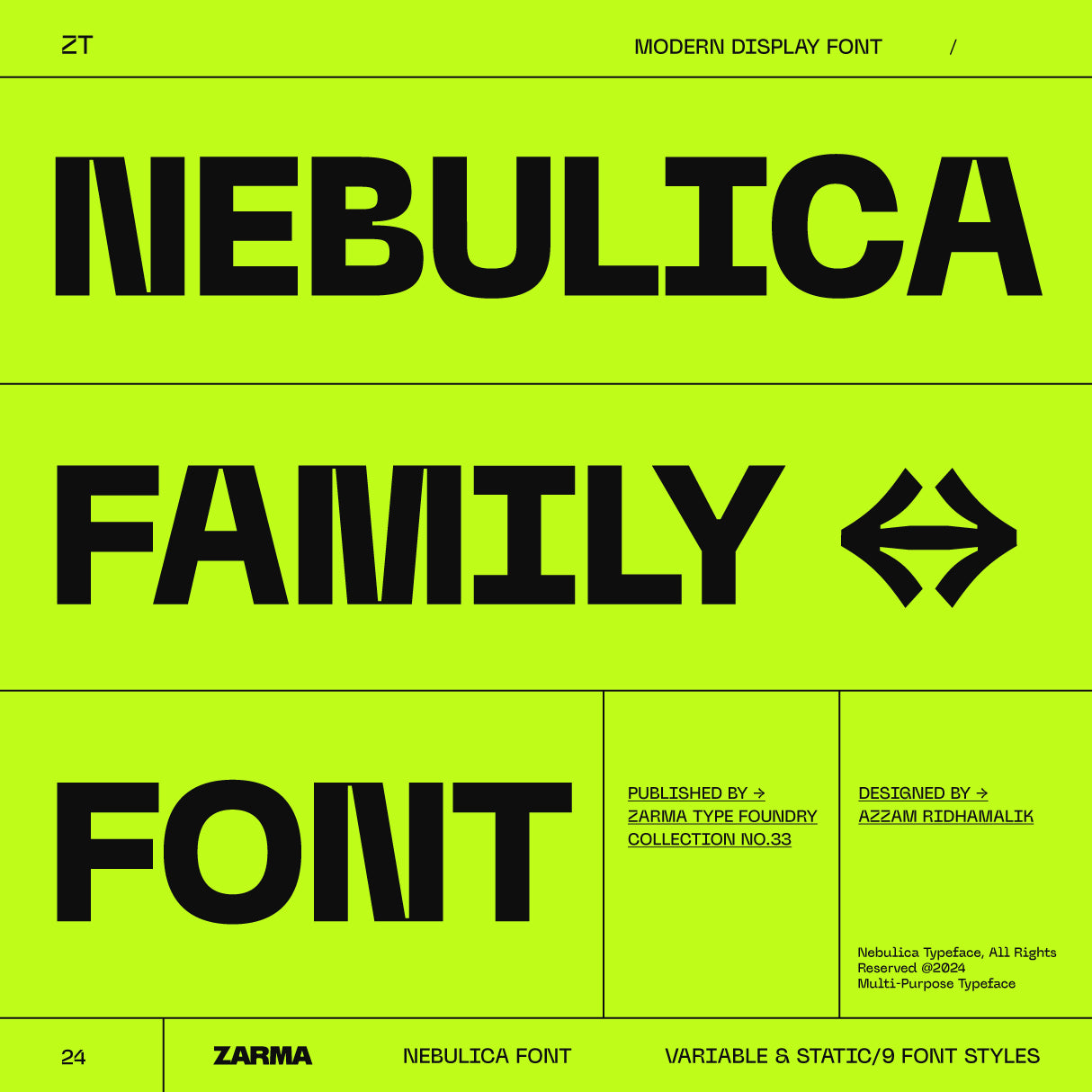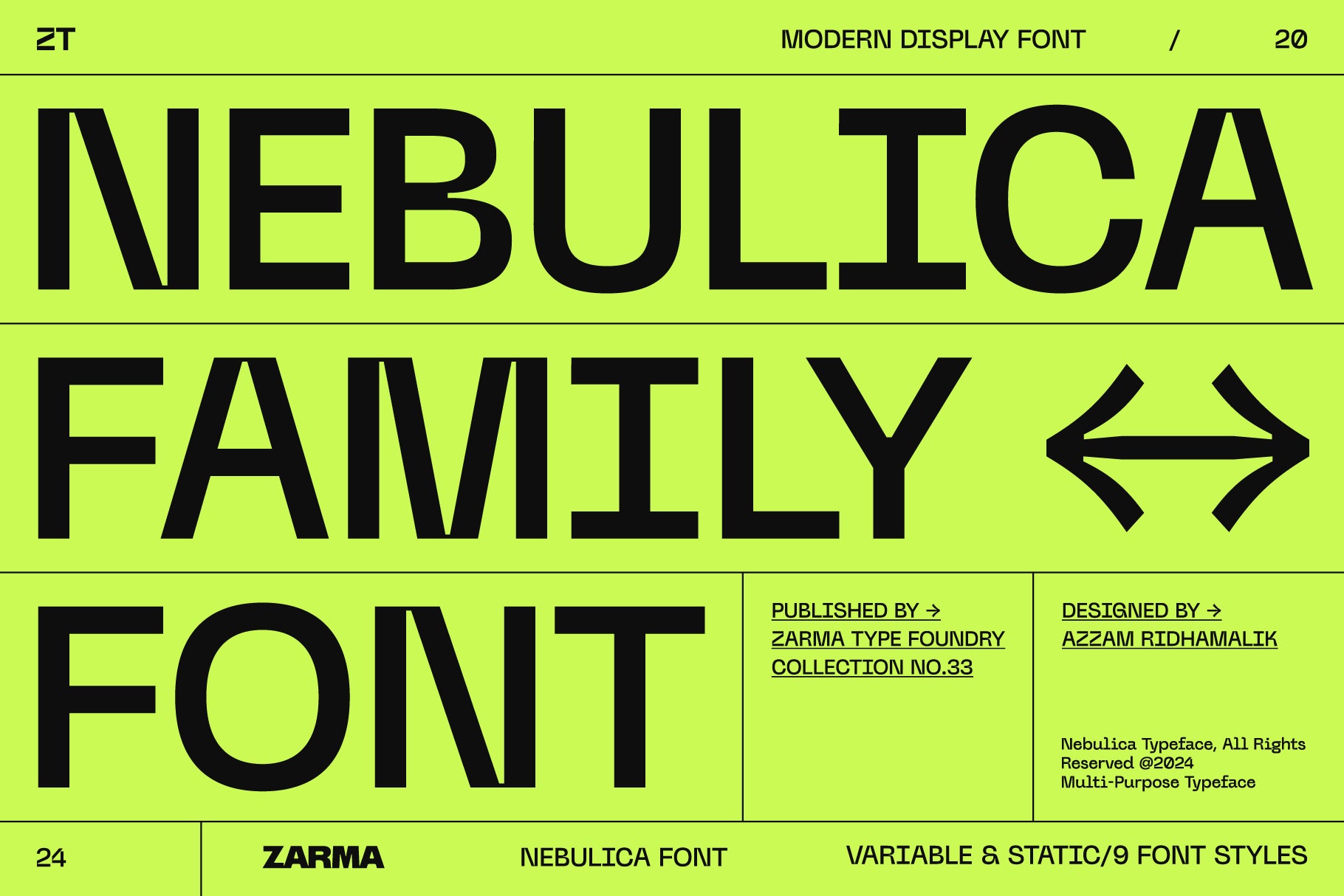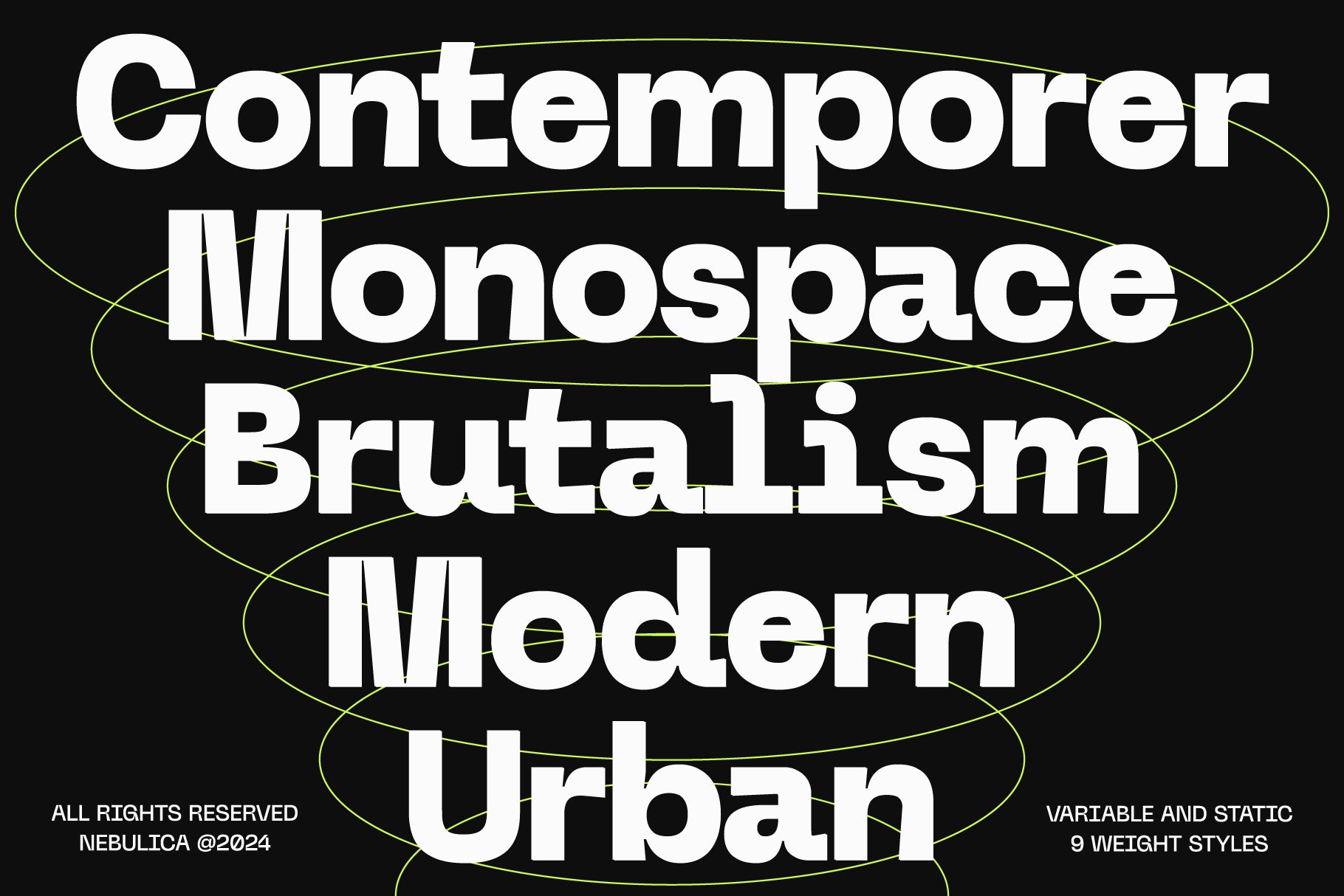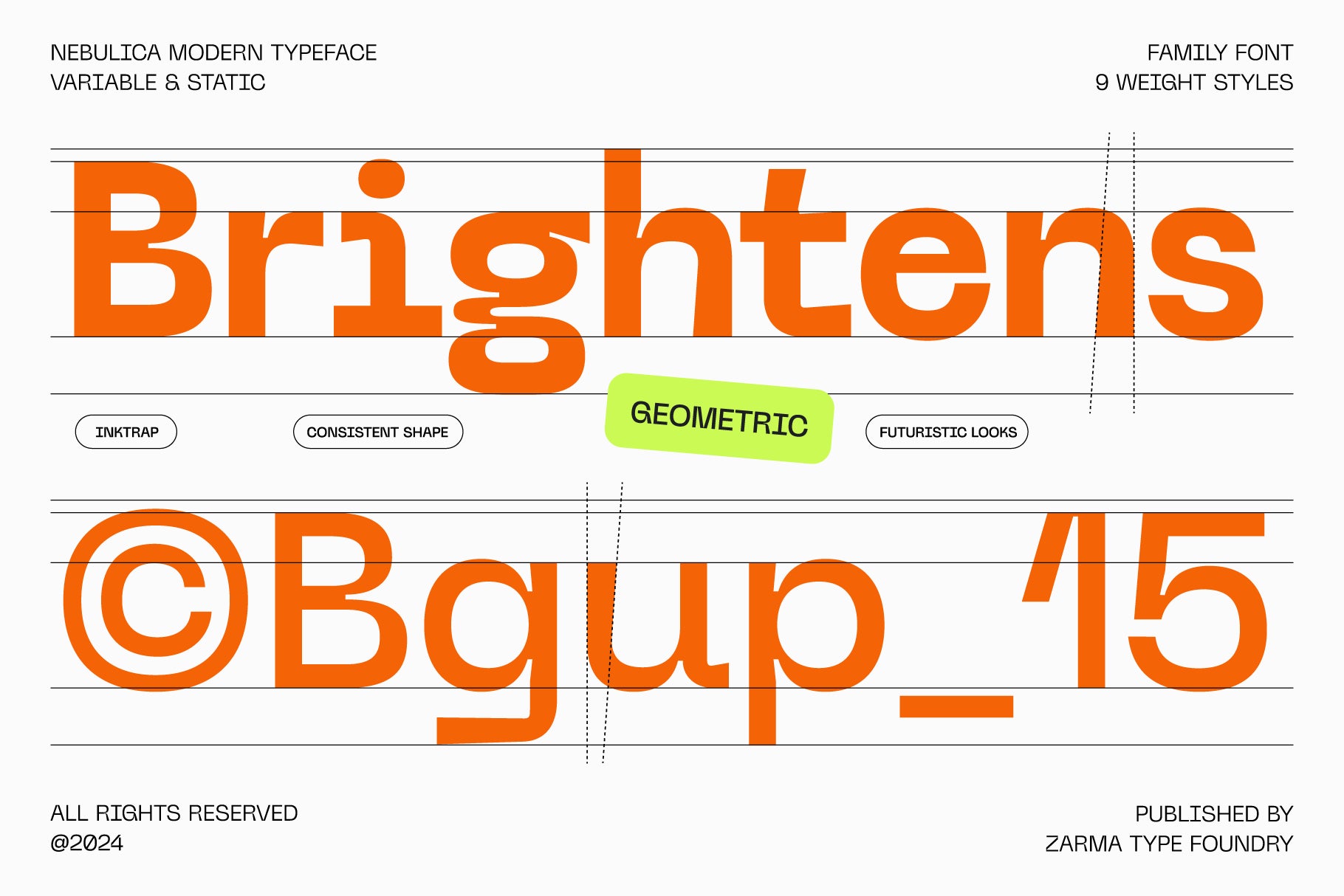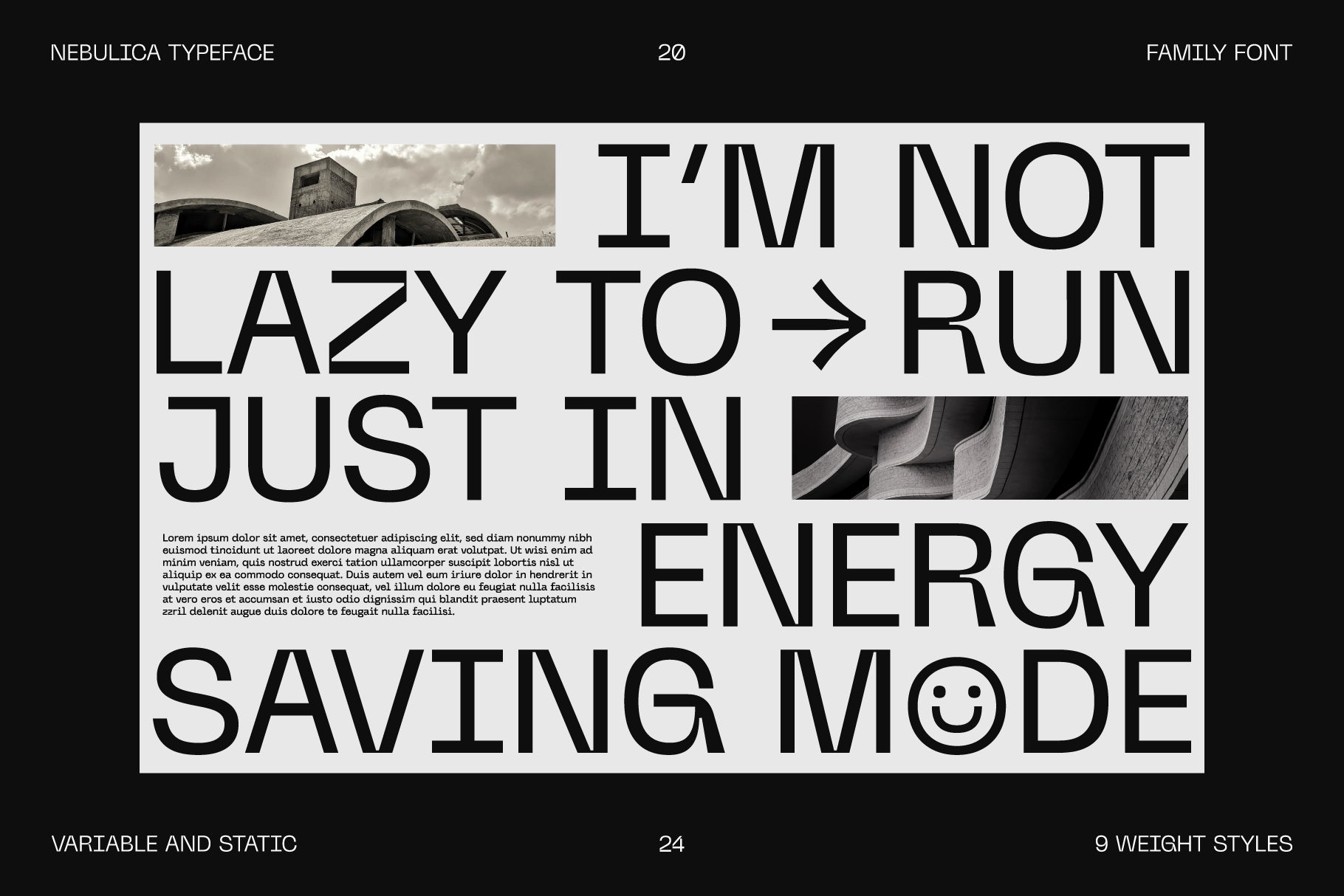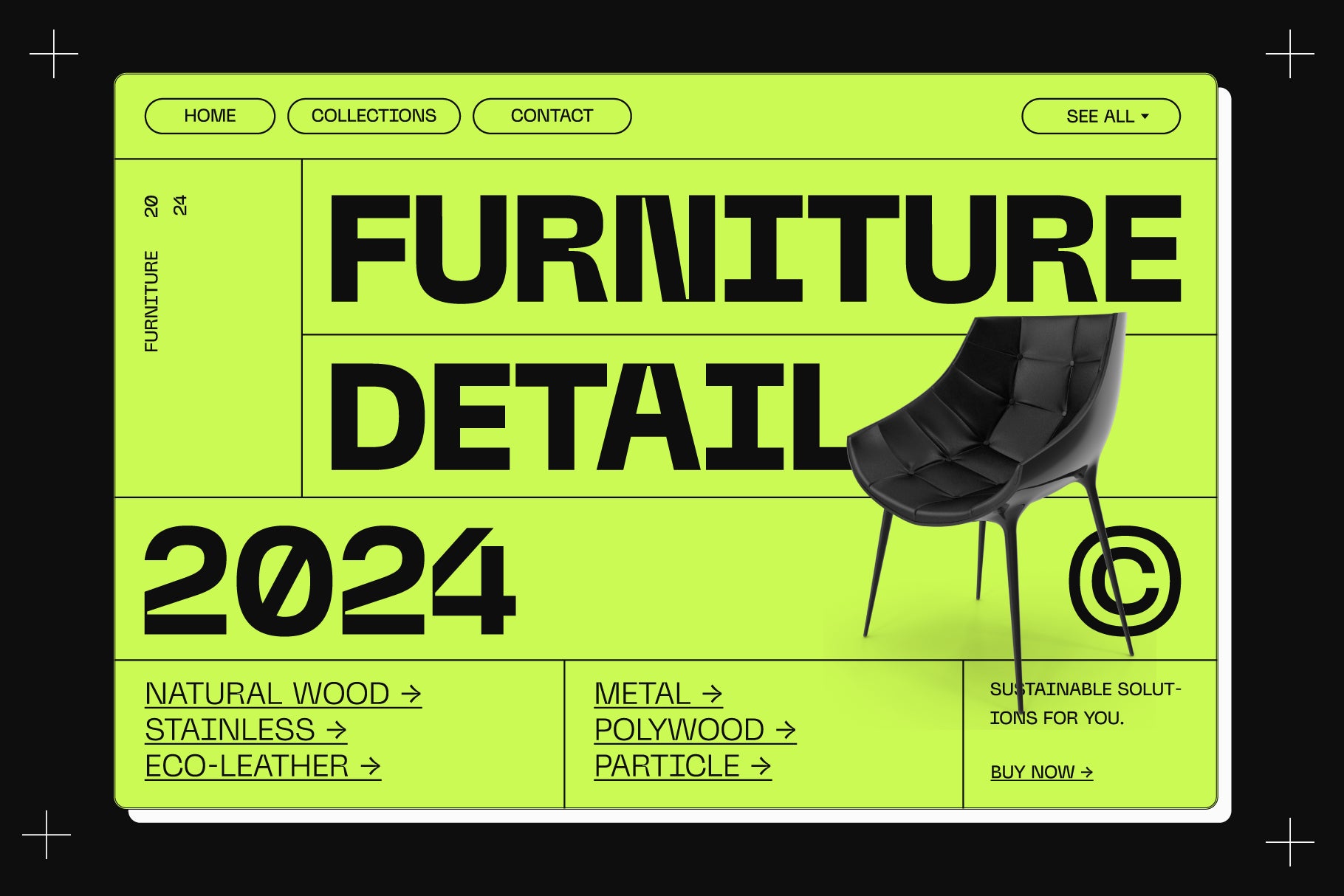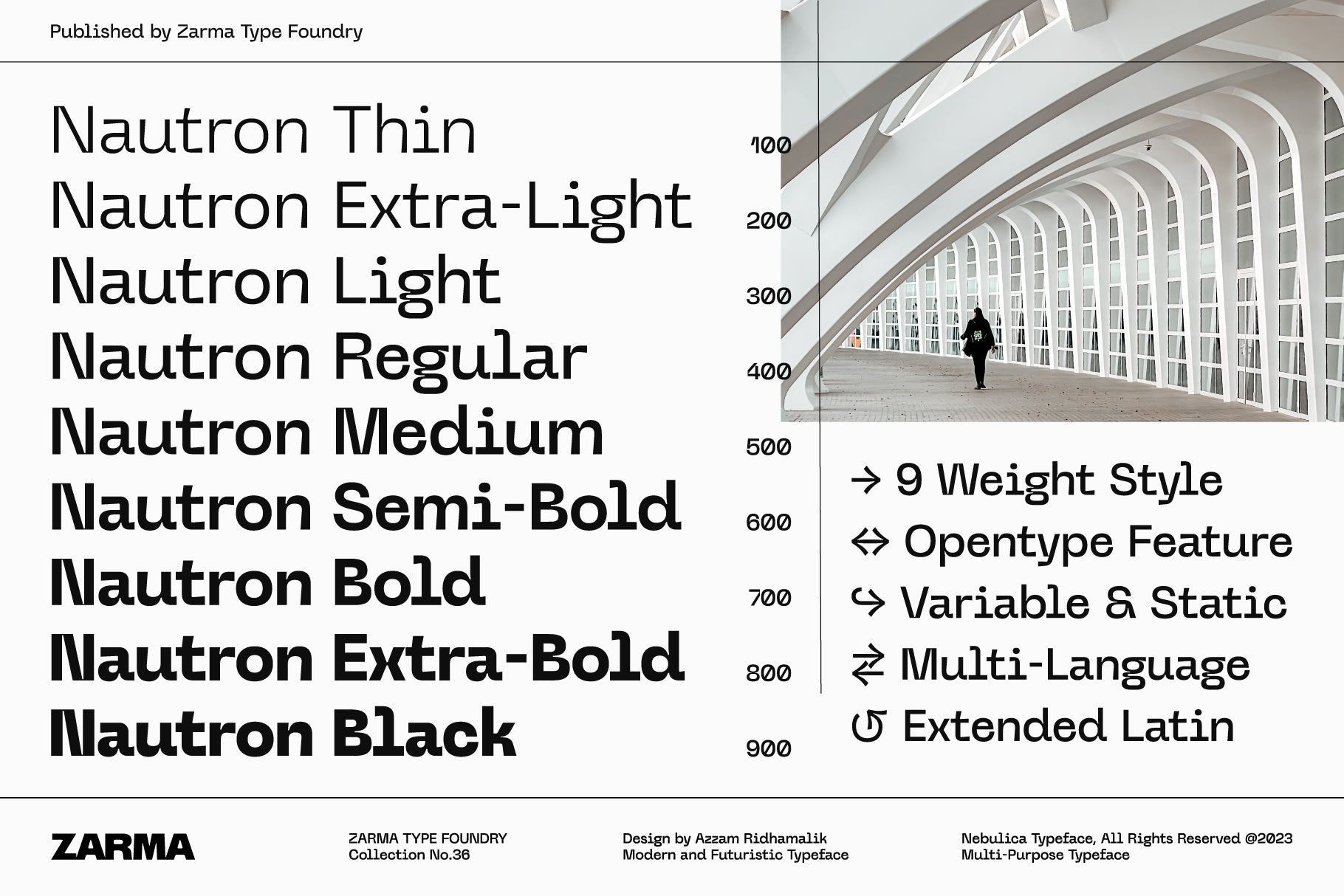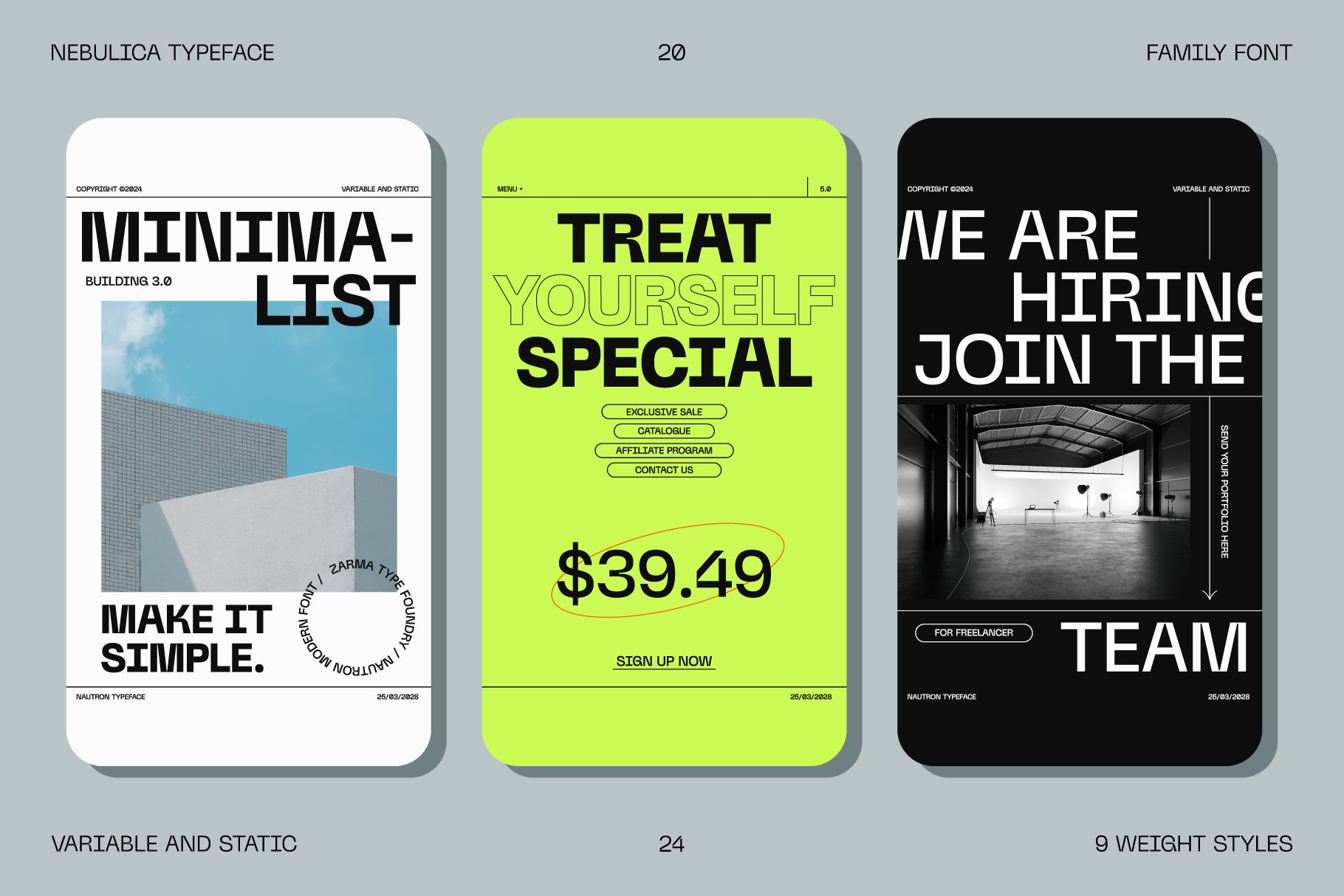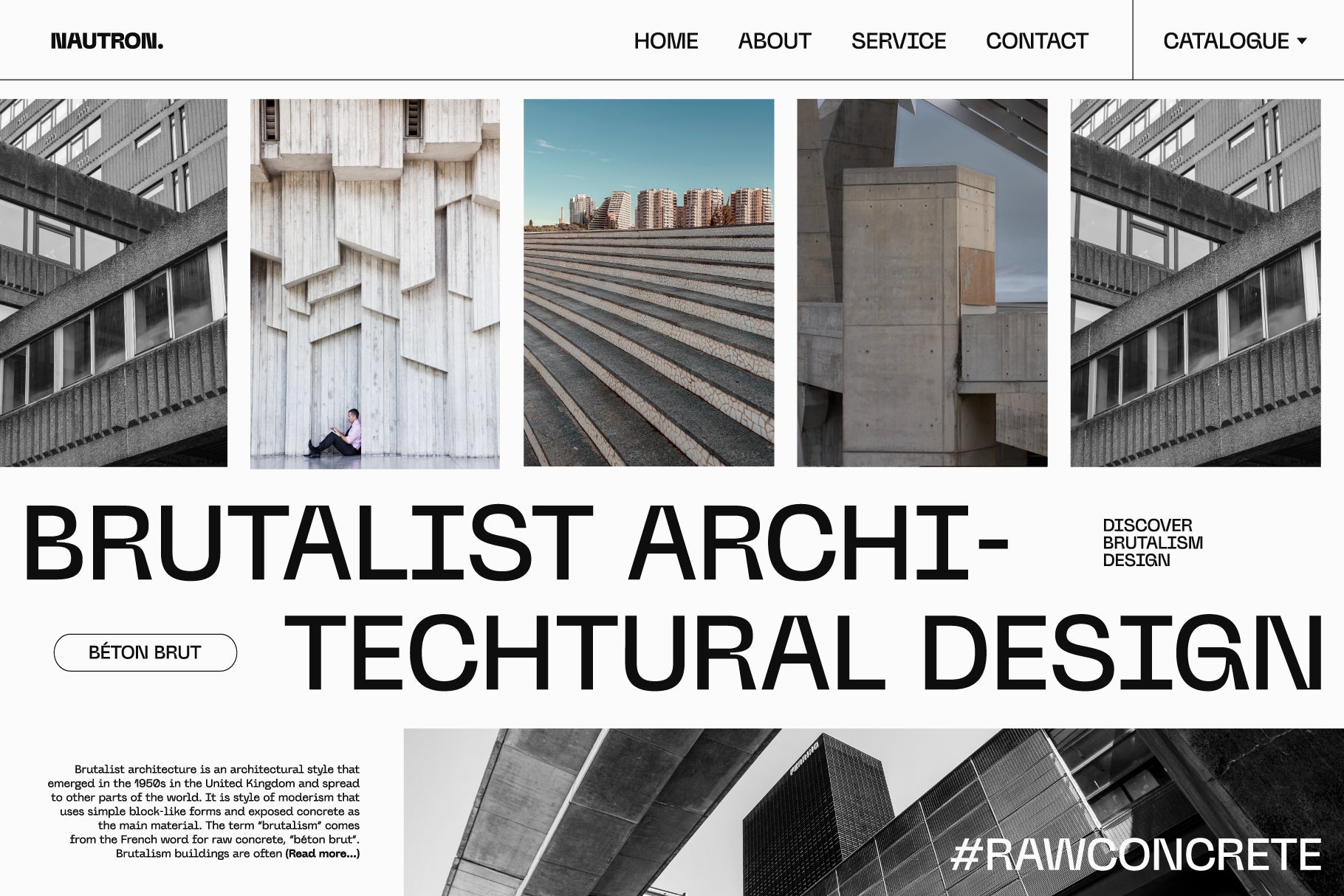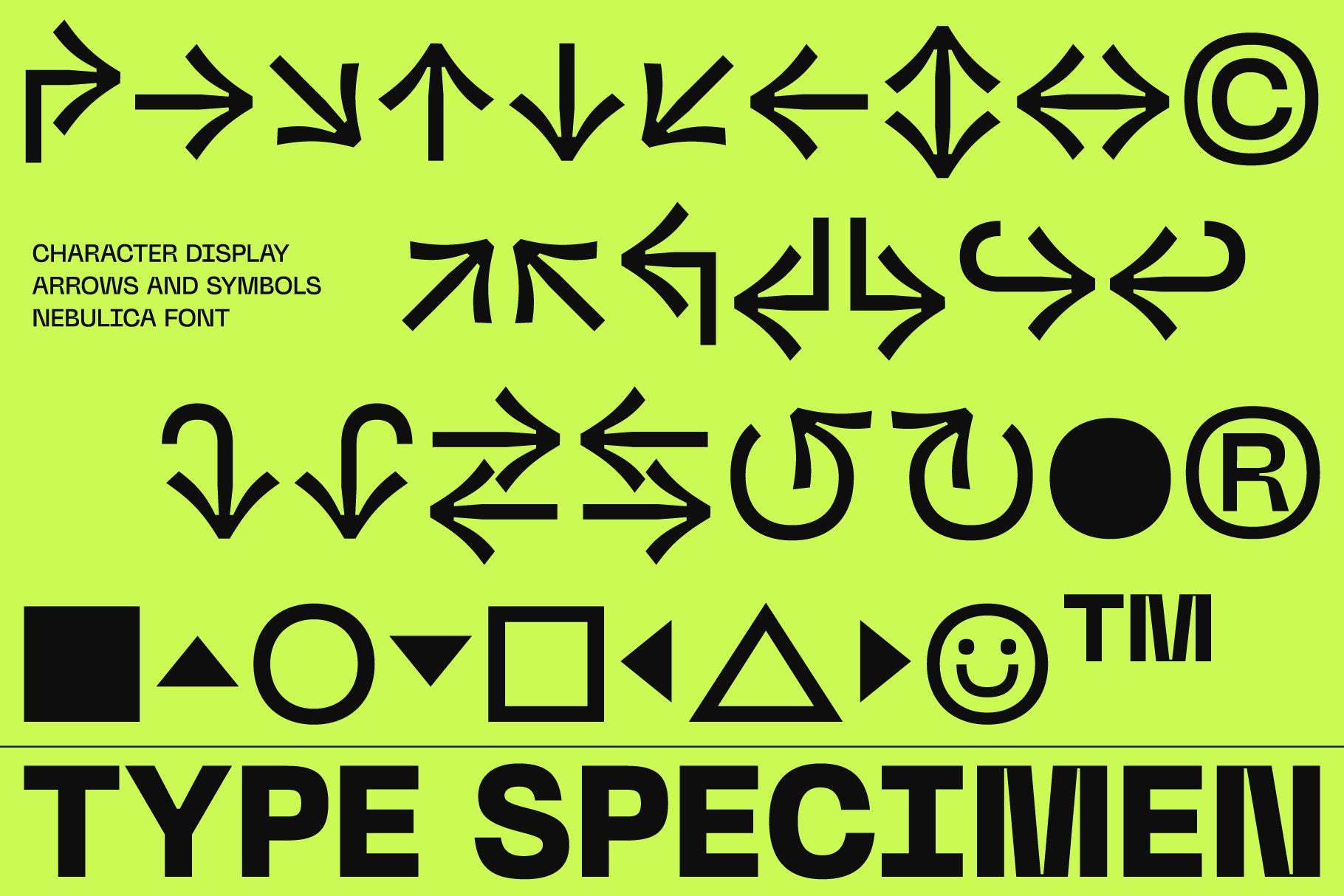
Nebulica Font
Zarma Type
Nebulica is a modern Geometric Sans Font that blends geometric precision with monospace influences to create a clean, contemporary typeface. Featuring distinctive inktraps, slanted stems, and a Variable Font format, Nebulica offers exceptional flexibility for branding, editorial, web, interface, and technology-inspired designs while maintaining outstanding readability.
Equipped with uppercase and lowercase characters, numbers, punctuation, symbols, arrows, ligatures, OpenType features, PUA encoding, and 435+ glyphs with Extended Latin coverage supporting 88+ languages, Nebulica is a versatile choice for designers seeking a bold, minimalist typeface with powerful multilingual capabilities and refined geometric details.
Nebulica Font is a modern Geometric Sans typeface that combines geometric precision with monospace influences, featuring distinctive inktraps and slanted stems. It includes uppercase and lowercase characters, numbers, punctuation, symbols, ligatures, and over 435 glyphs with Extended Latin coverage for 88+ languages, all in a Variable Font format for enhanced flexibility.